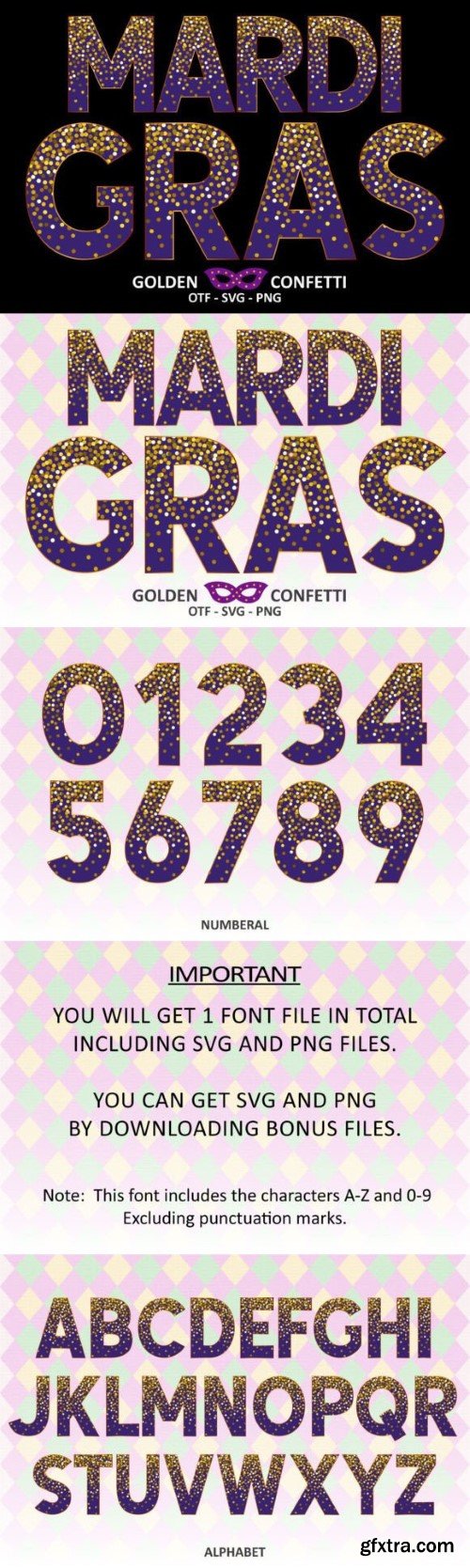
马里古斯金色喷泉字体
Introducing the “Mardi Gras Golden Confetti” – a fun and festive color font. Each letter is decorated with golden confetti, which is perfect for all your Mardi Gras Festival-themed projects. You can use it to design products such as banners, content, mugs, cards, shirts, stationery, social media posts, and more!